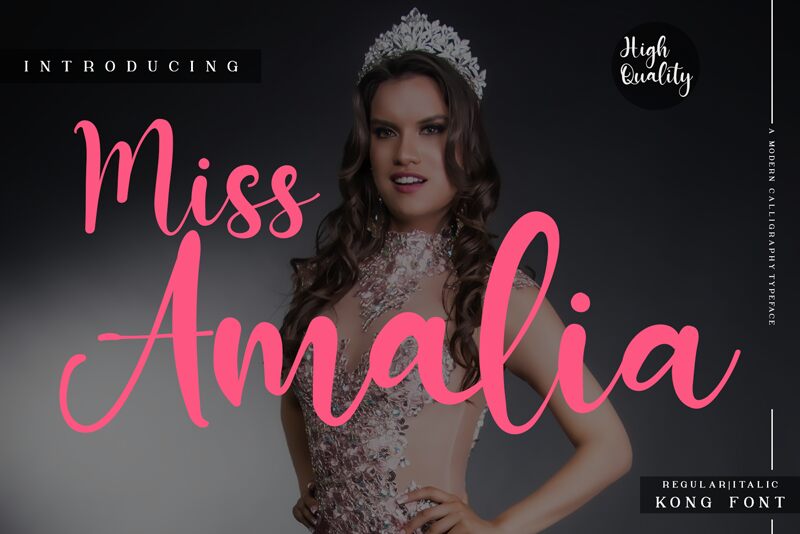
Miss Amalia font family by Kong Font includes 4 beautiful calligraphic font styles. This font family combines elegance, flow, and modern calligraphy features to attract views. Its expressive characters give it a casual, sophisticated, and inviting feel with a romantic vibe that can work for multiple design purposes. The artistic letters are visually dynamic, thus extra captivating.
Miss Amalia font is recommended for wedding or engagement invitations, packaging, wedding favors, apparel, branding, social media posts, personal blogs, posters, and magazine covers. Its charming letters look best in decorative designs that are emotionally moving.